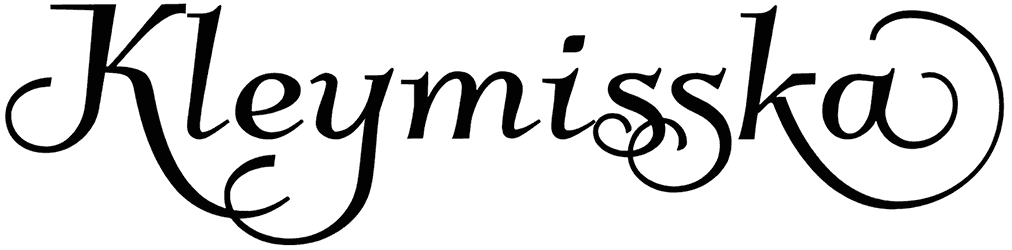
Kleymisska Font
Quite artistic while carrying organic vibes, move closer to please any audience’s eyes, especially youngsters, in designing any artwork of greeting cards, posters, invitations, cosmetic brands, and other gripping visuals…
Quite artistic while carrying organic vibes, move closer to please any audience’s eyes, especially youngsters, in designing any artwork of greeting cards, posters, invitations, cosmetic brands, and other gripping visuals.
This royal font, Kleymisska, in the company of a complete set of alphabets, makes every effort to bring pleasurable writing ends and motivate anyone to put their finger on it to share warm and natural senses.
Cursive, decorative font Kleymisska with contextual Alternates, Ligatures, initial and terminal Forms (as contextual Alternates). Font is newer, bold version of font Kleymissky